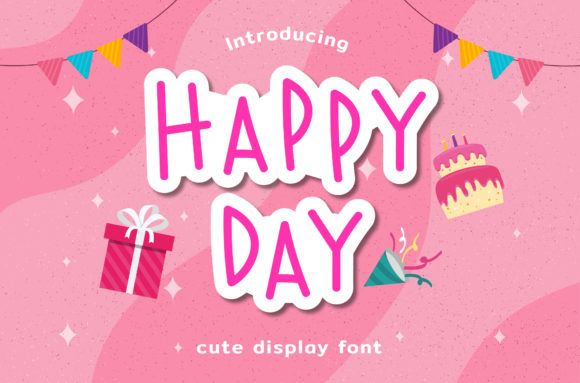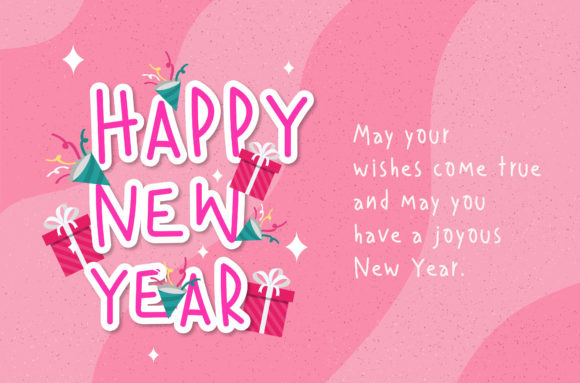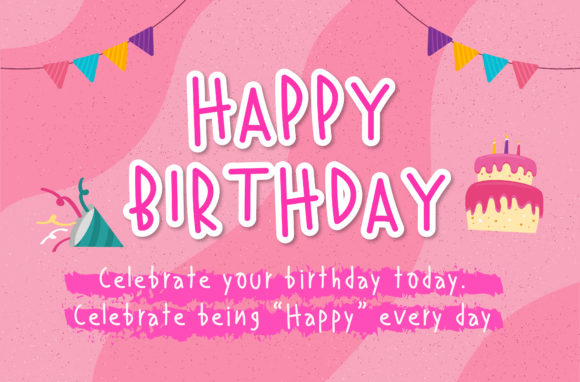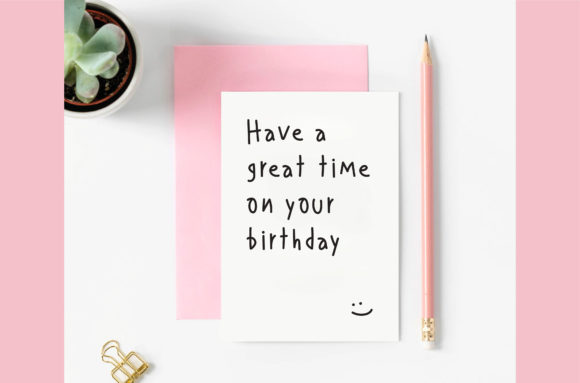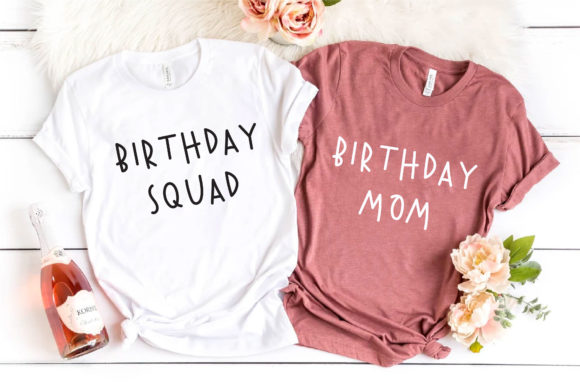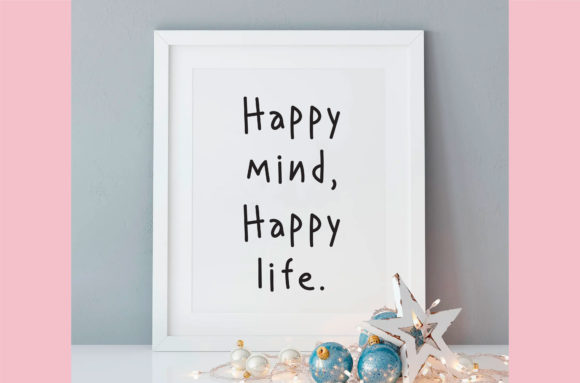
Happy Day Font
About Happy Day Font
Happy Day is a stylish and quirky handwritten font. It has a clean, thin, and smooth vibe, and it will be a great hit for any design you want to add it to.
This font is perfect for quotes, shirt designs, websites, branding, children’s designs, blogs, logos, invitations, and more!